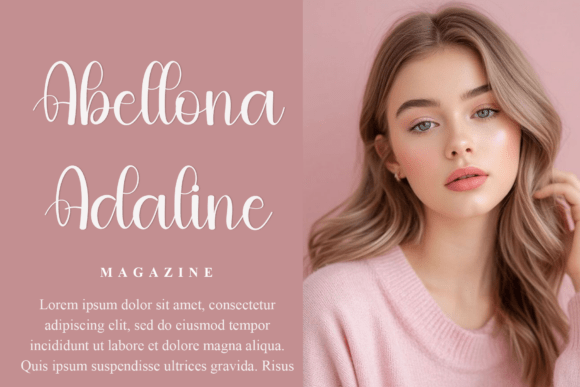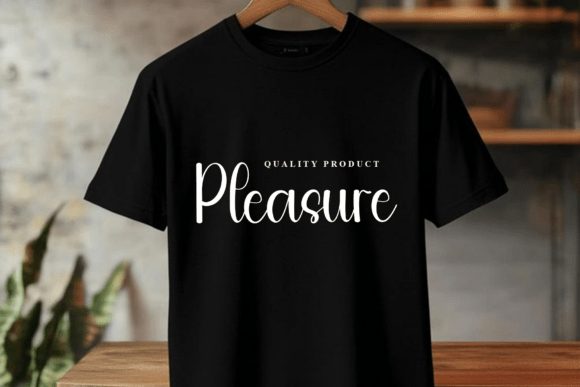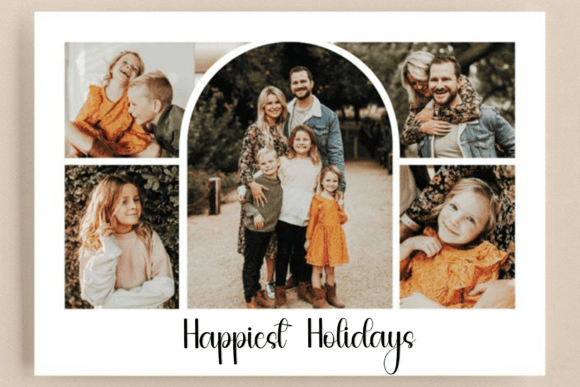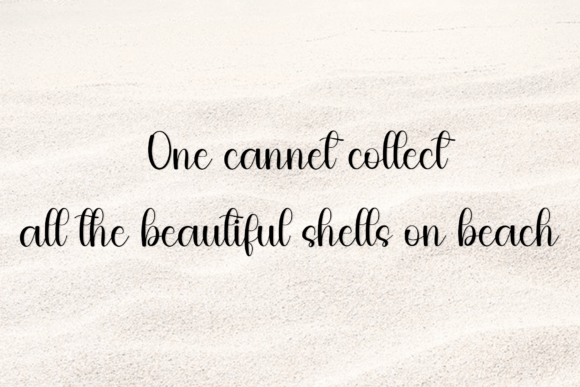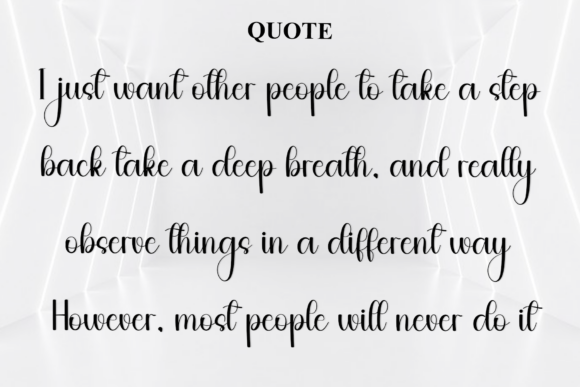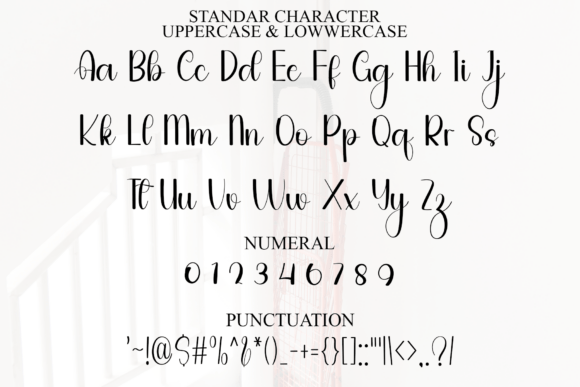
The Quest for the Perfect Font: Discovering Beautiful Handmade
I’ll never forget the time I was working on a design project for a client who wanted a font that was both elegant and playful. I spent hours scouring the internet for the perfect font, but nothing seemed to fit the bill. That was until I stumbled upon Beautiful Handmade, a font that has since become a staple in my design toolkit.
A First Impression of Beauty
Beautiful Handmade is a beautiful and eye-catching font designed with a soft, unique touch. Its distinctive strokes give it a special character, making it meaningful and versatile for future use. With various characters, it’s perfect for design projects, crafts, and other creative works.
So, what makes Beautiful Handmade so special? Here are a few things I love about this font:
- ✨ Unique character set: The font comes with a wide range of characters, making it perfect for creative projects that require a personal touch.
- ✅ Highly versatile: Beautiful Handmade can be used for a wide range of projects, from design and crafts to digital and print media.
Of course, no font is perfect, and Beautiful Handmade has a few quirks:
- 🤔 Limited kerning options: While the font has a great default kerning, you may need to adjust it manually for certain projects.
- ⚠️ Some characters may not work well in smaller sizes: Due to the font’s intricate design, some characters may become blurry or difficult to read when used in smaller sizes.
The Story Behind Beautiful Handmade
Beautiful Handmade was designed by a talented typographer who wanted to create a font that was both beautiful and functional. The designer’s inspiration came from traditional handwriting and calligraphy, with a focus on creating a unique and eye-catching font.